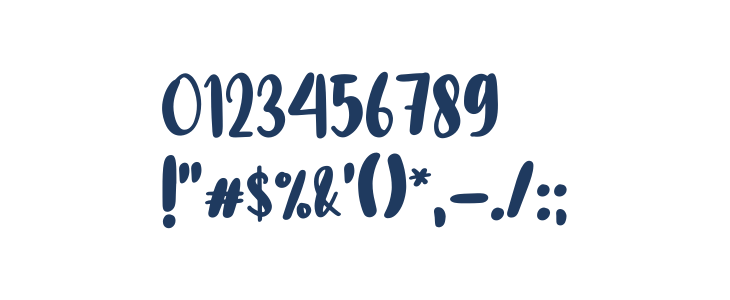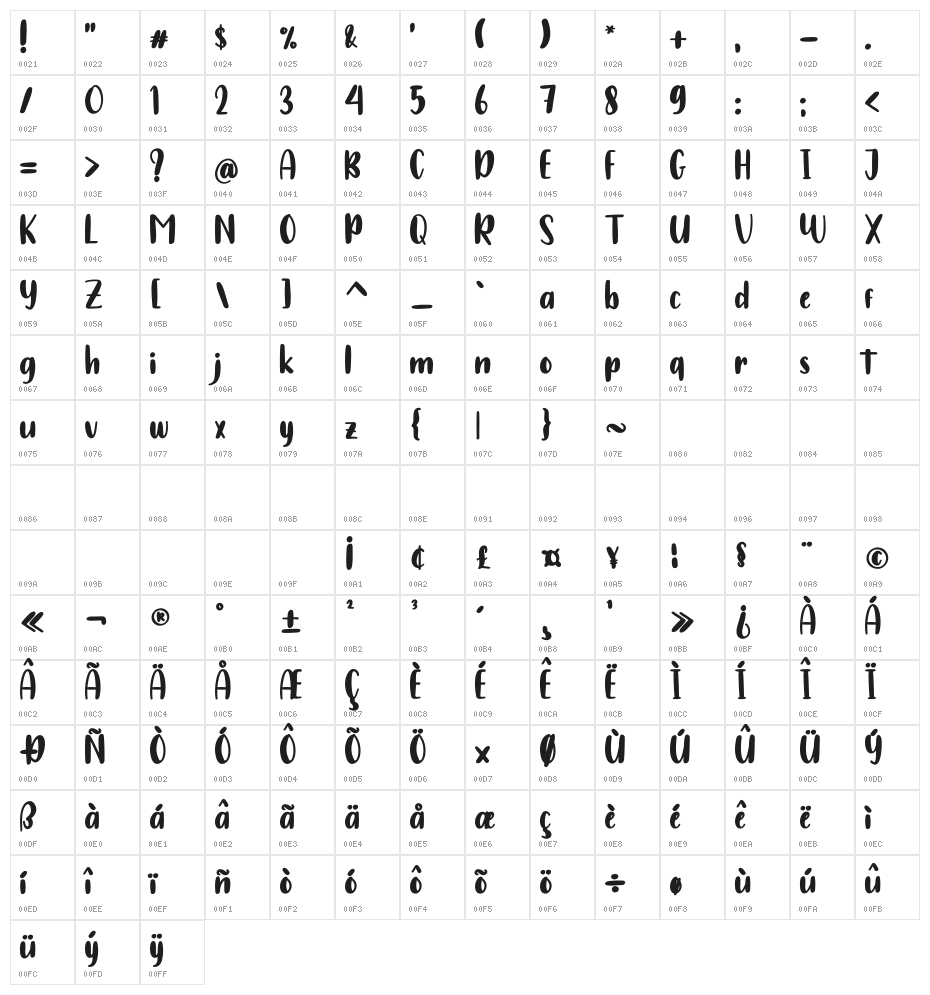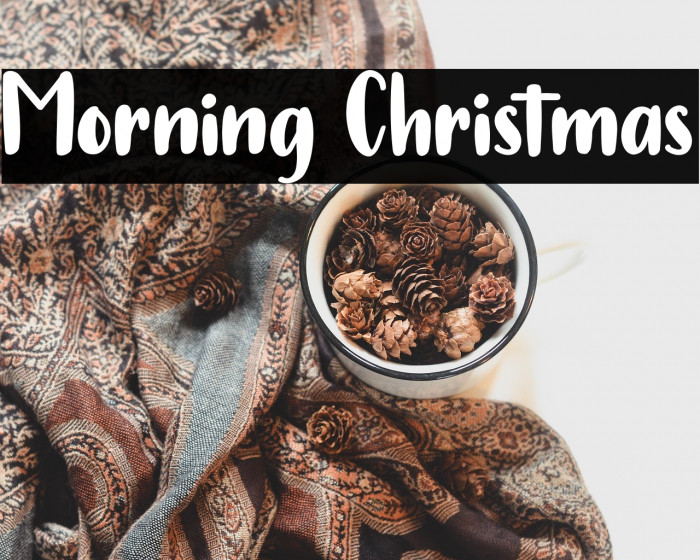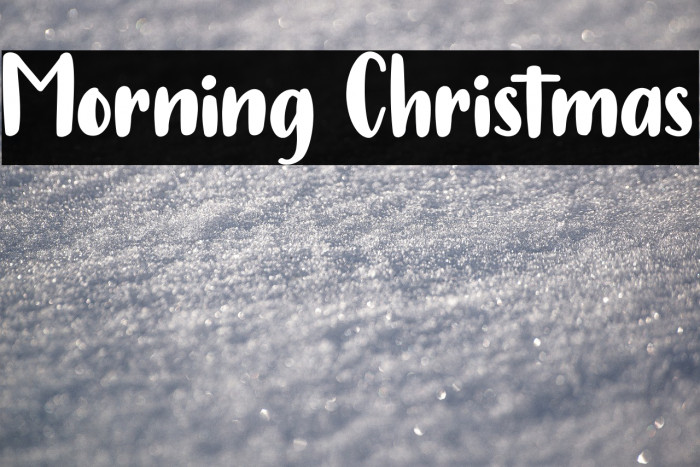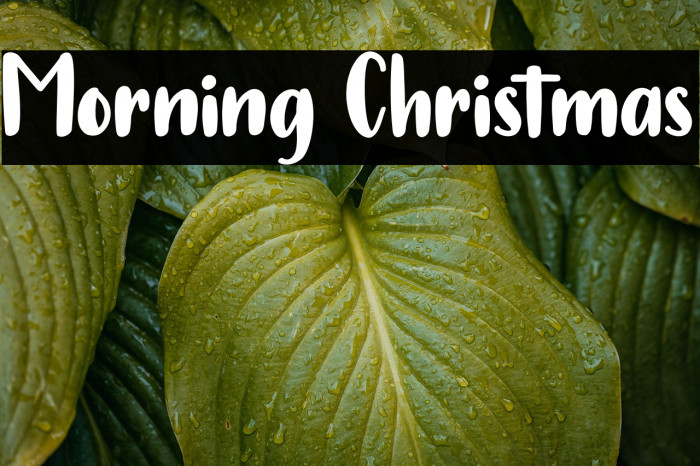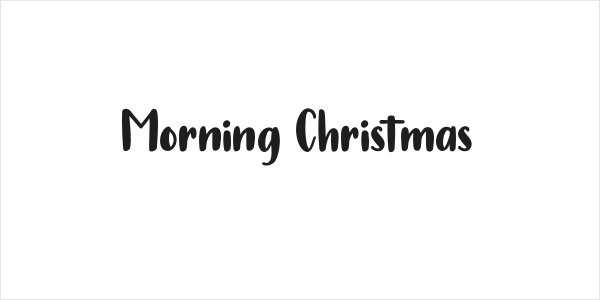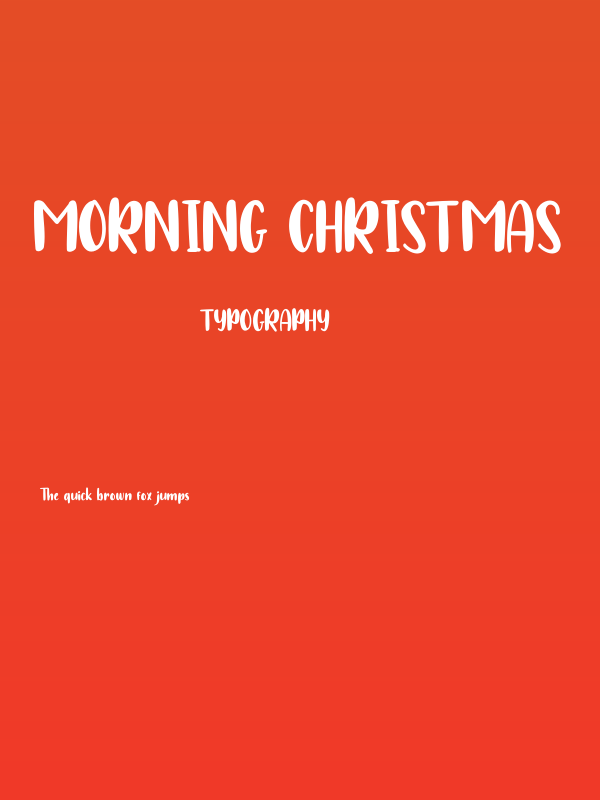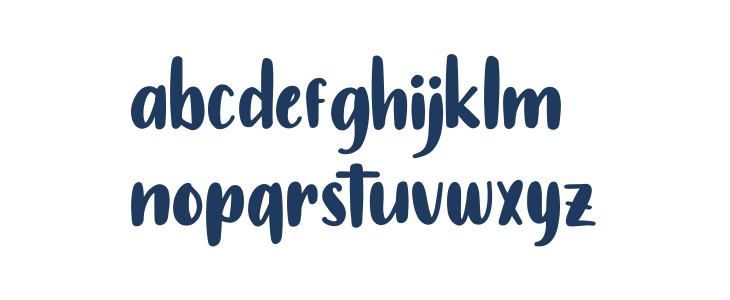
Morning Christmas Font
Morning Christmas Description
This font features a playful and bold handwritten style, characterized by its thick strokes and rounded edges. The uppercase letters are tall and slightly condensed, while the lowercase letters maintain a consistent height, creating a harmonious flow. The numbers are bold and easily readable, with a slight slant that adds to the casual feel. Special characters are creatively designed, maintaining the font's overall playful aesthetic. The font's boldness and unique style make it stand out, perfect for projects that require a touch of whimsy and personality.
| Proposed Projects | Ideal for greeting cards, playful branding, children's books, and festive designs. |